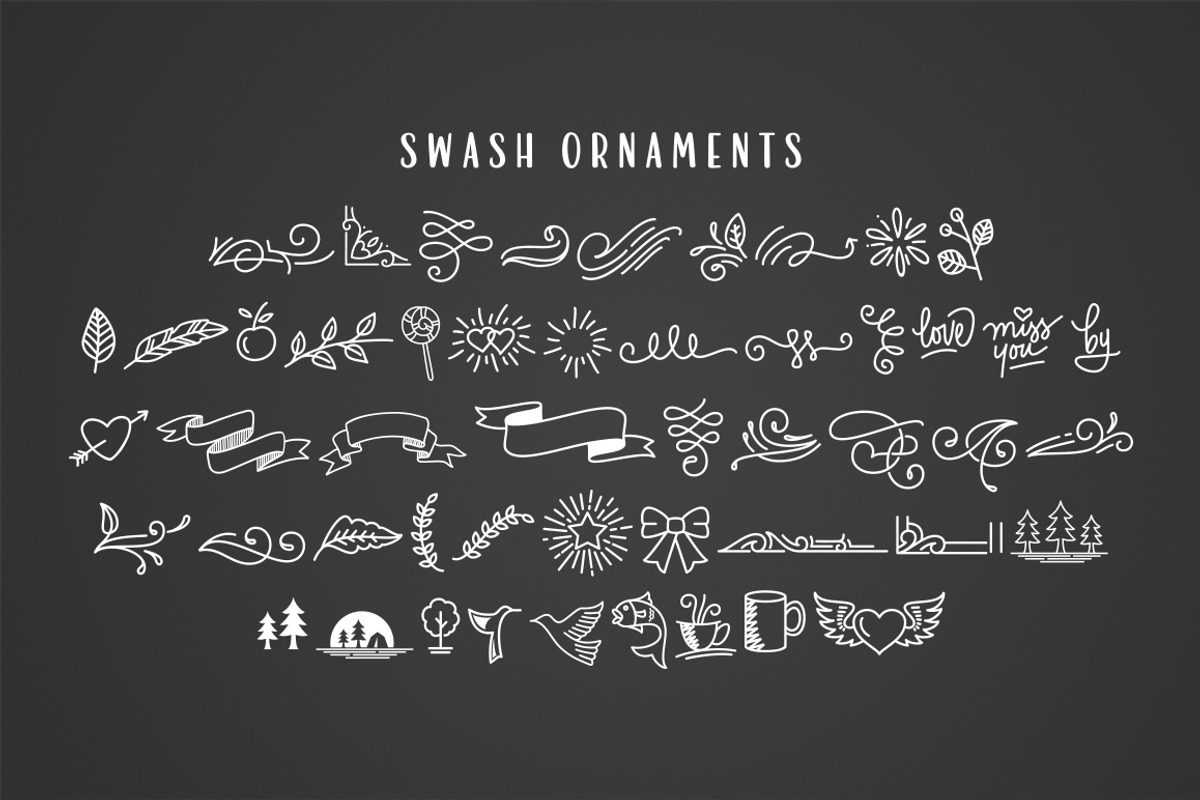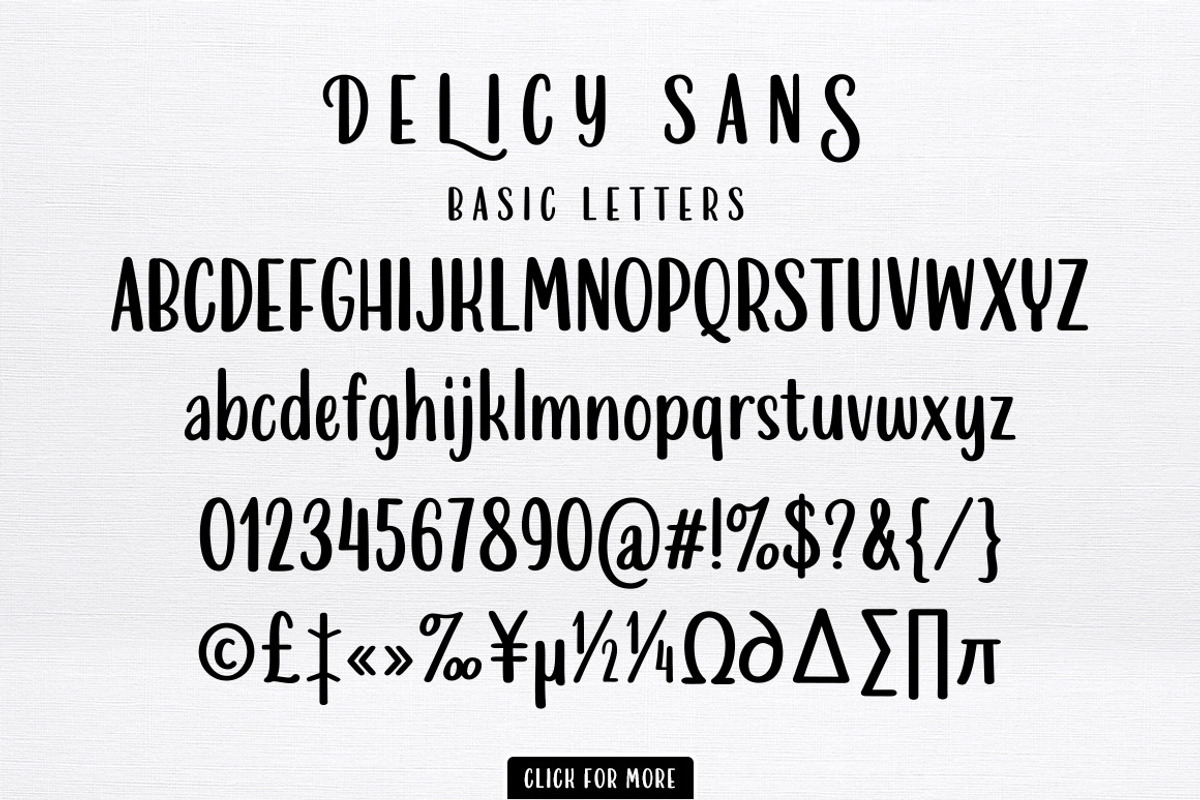
Delicy
Introducing Delicy, a font comes with an attractive package that combines three different font styles; script, sans and ornaments. With Delicy, you will more easily integrate typography in a variety of graphic design work.
Delicy Script: a monoline font made as natural as possible similar to handwriting or signature. OpenType features making it easier to mix and match various styles of writing. With stylistic alternates feature, you can get the look of modern calligraphy in monoline style. With Swash feature and Stylistic Sets, you can find many variations of the basic letters. While you can easily add ornaments in the beginning and end of the letter with ease, simply by typing the double hyphen (--) before or after the letter.
Delicy Sans: this is handmade sans font. The shapes may not be smooth and neat but instead we want to offer a more natural sensation. Besides the basic letter, Delicy Sans also offers interesting ligatures, as well as the catchword of some of the conjunctions are frequently used.
Delicy Swash: This is an extra font that provides attractive icons; animals, flowers, ornaments, ribbons etc. The icons are laid out on a-z and A-Z. You can combine them with Delicy Script and Delicy Sans.